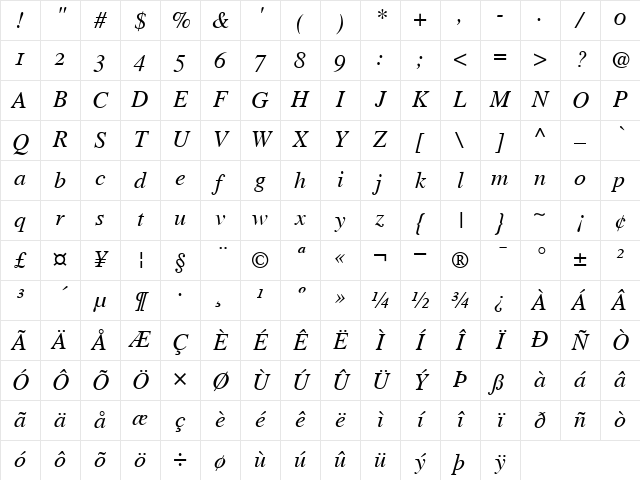
Complete TimesOldStyleFigures RomanItalic glyph index. Displaying only characters natively supported by TimesOldStyleFigures RomanItalic font.
TimesOldStyleFigures carries the refined structure of traditional serif typography, with bracketed terminals and considered proportions that communicate credibility and craft. The slanted form adds forward momentum and visual energy.
Pro Tip: Use TimesOldStyleFigures for editorial body copy and considered headline work. Pair with a neutral sans for UI elements or captions to create a classic hierarchy.